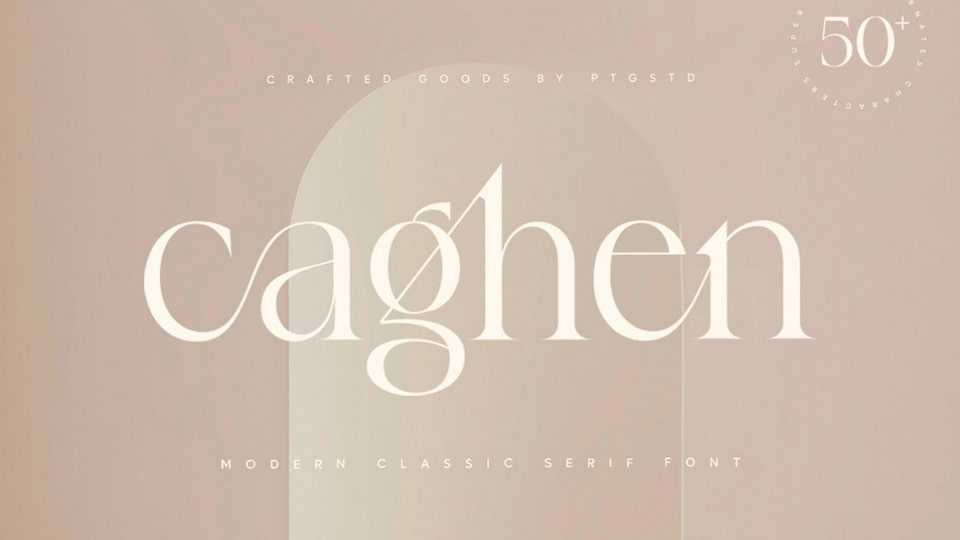
Download Caghen font, a delicate serif typeface with a modern look and luxurious feel. Caghen font is perfect for feminine logo, fashion magazines and editorial designs, branding projects, advertising, and much more.
Designer: Pentagonistudio